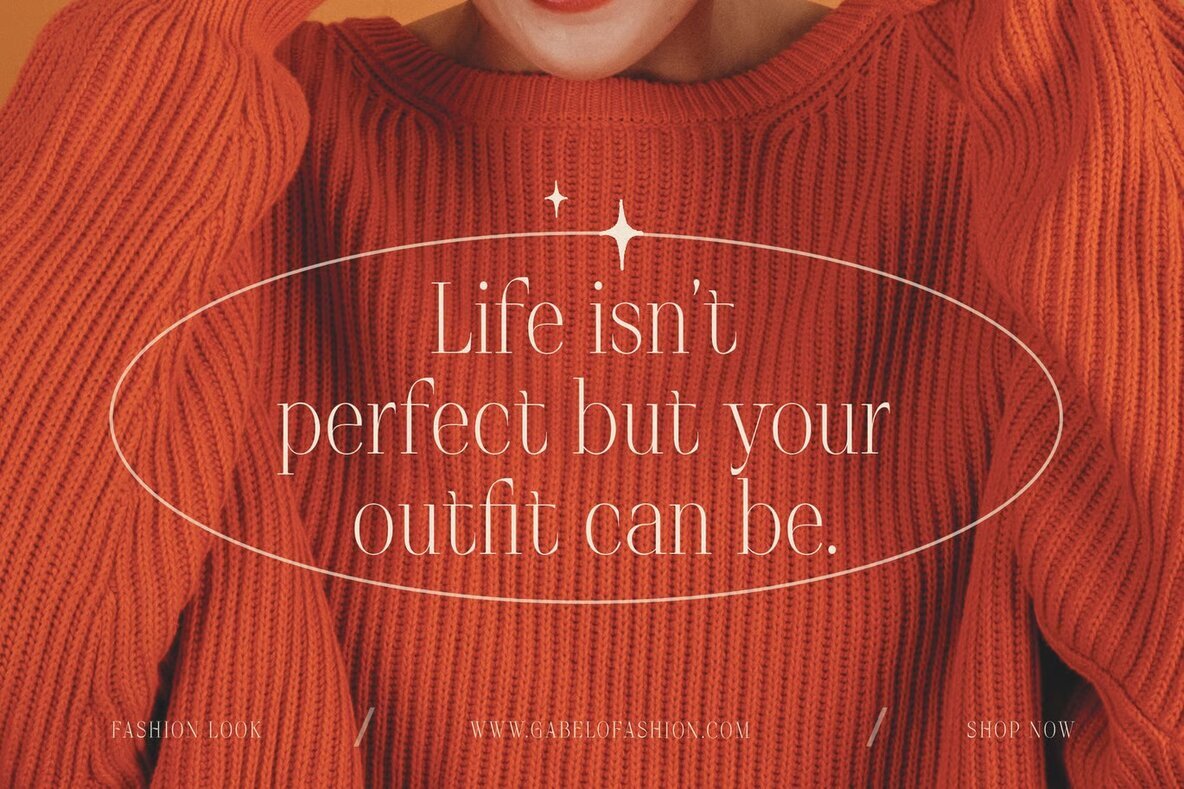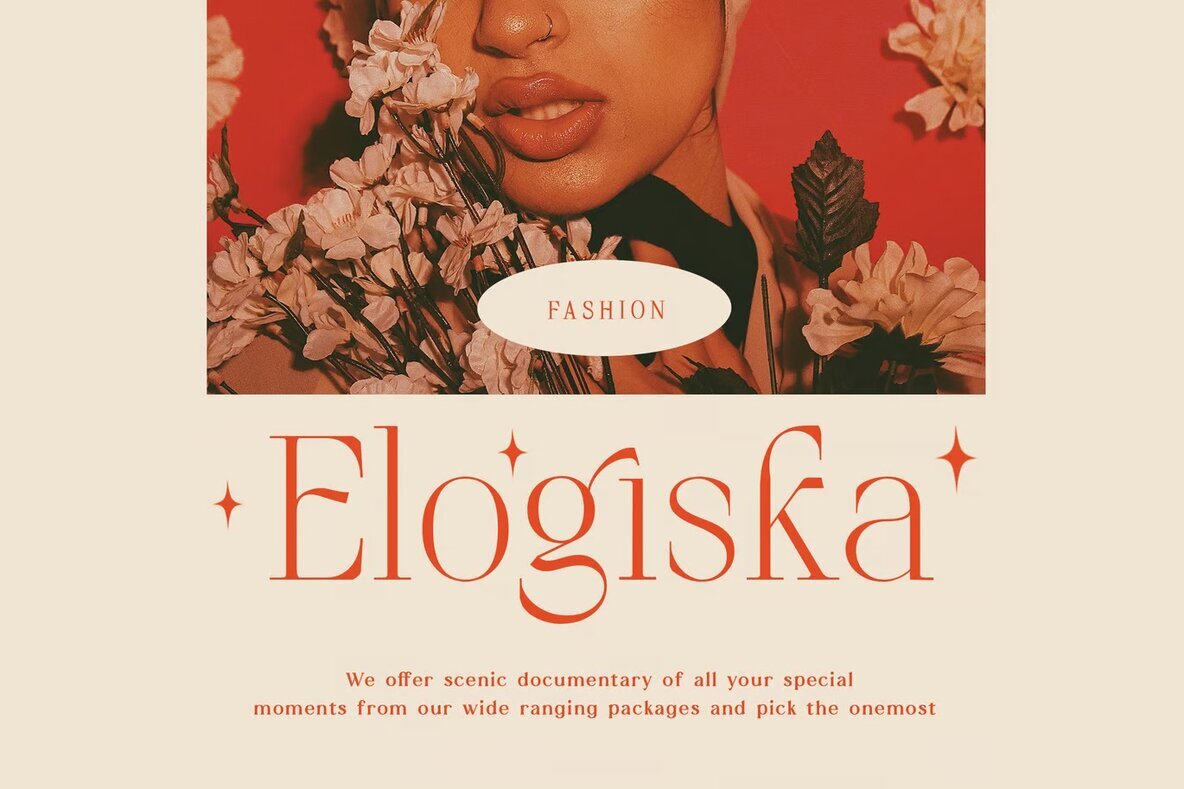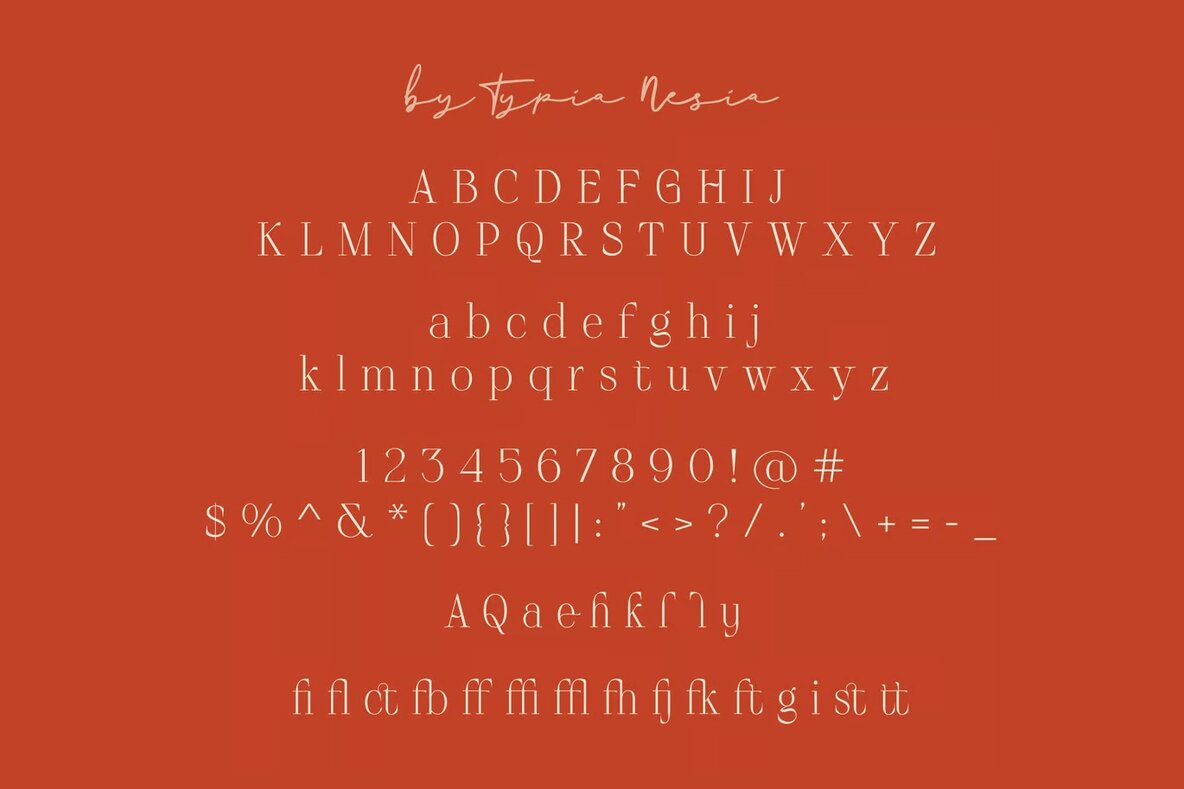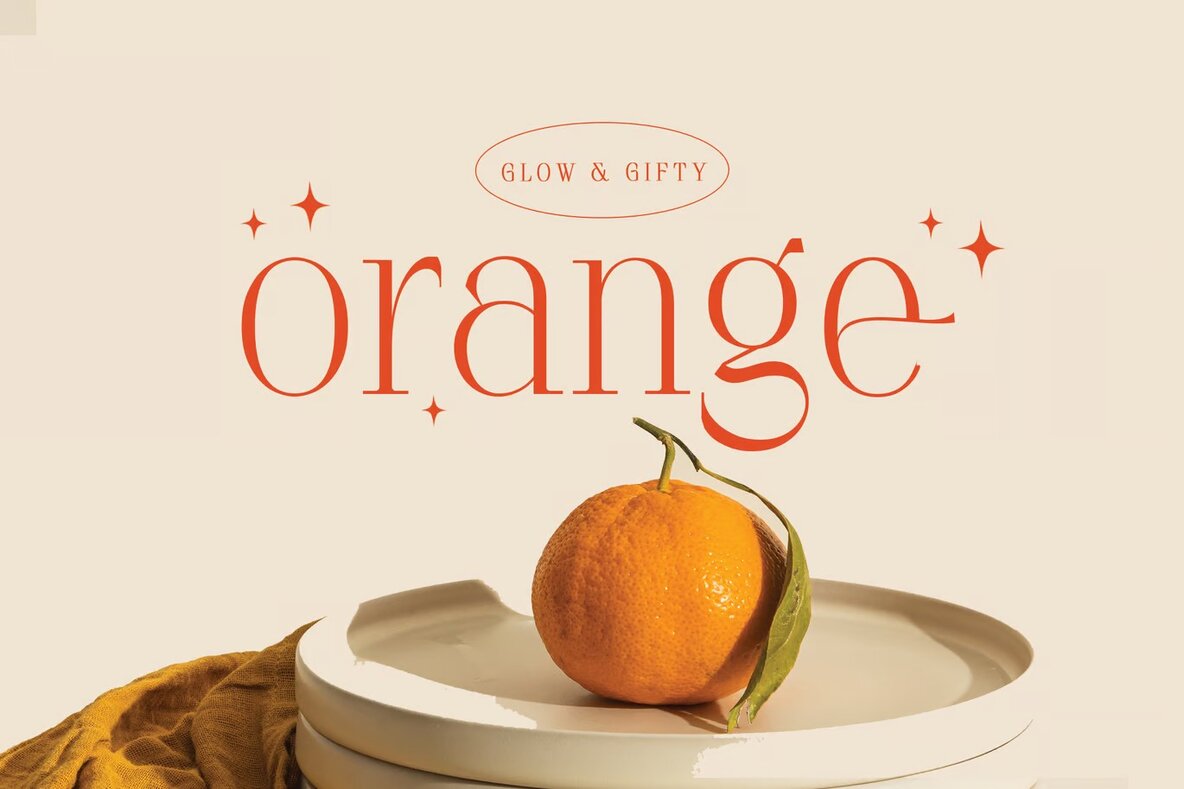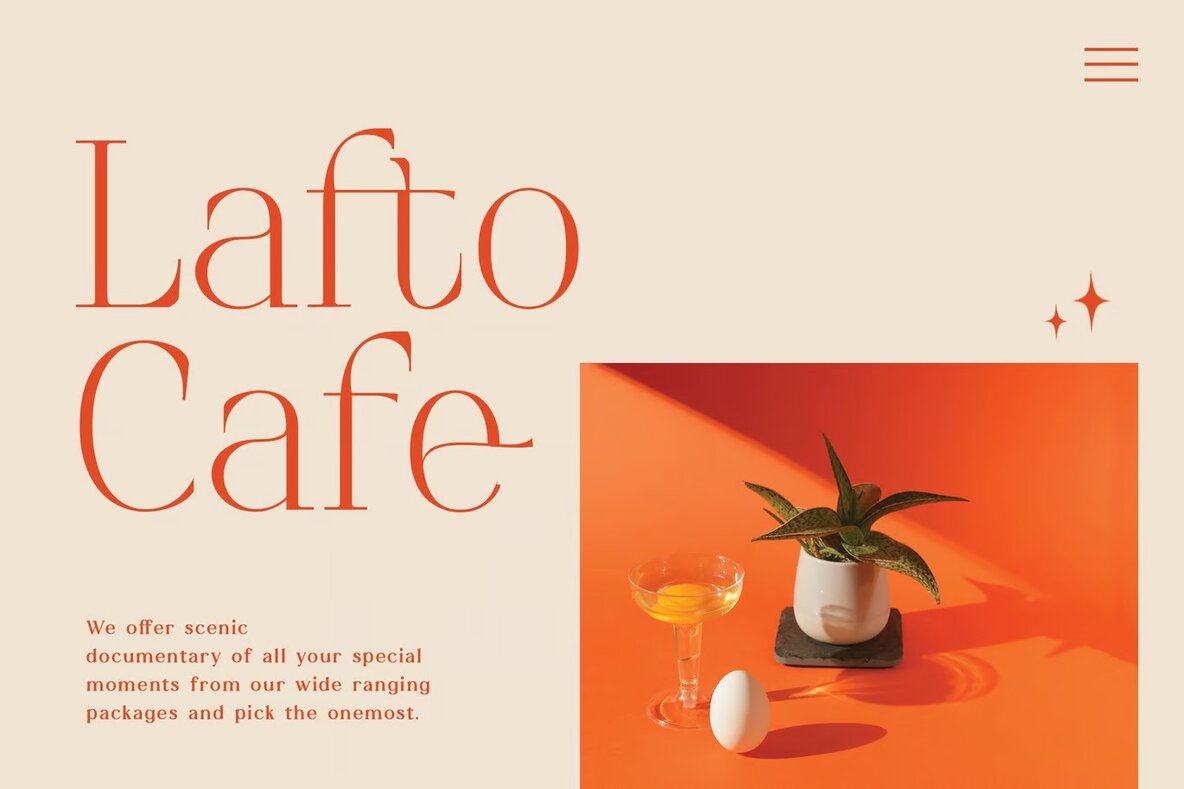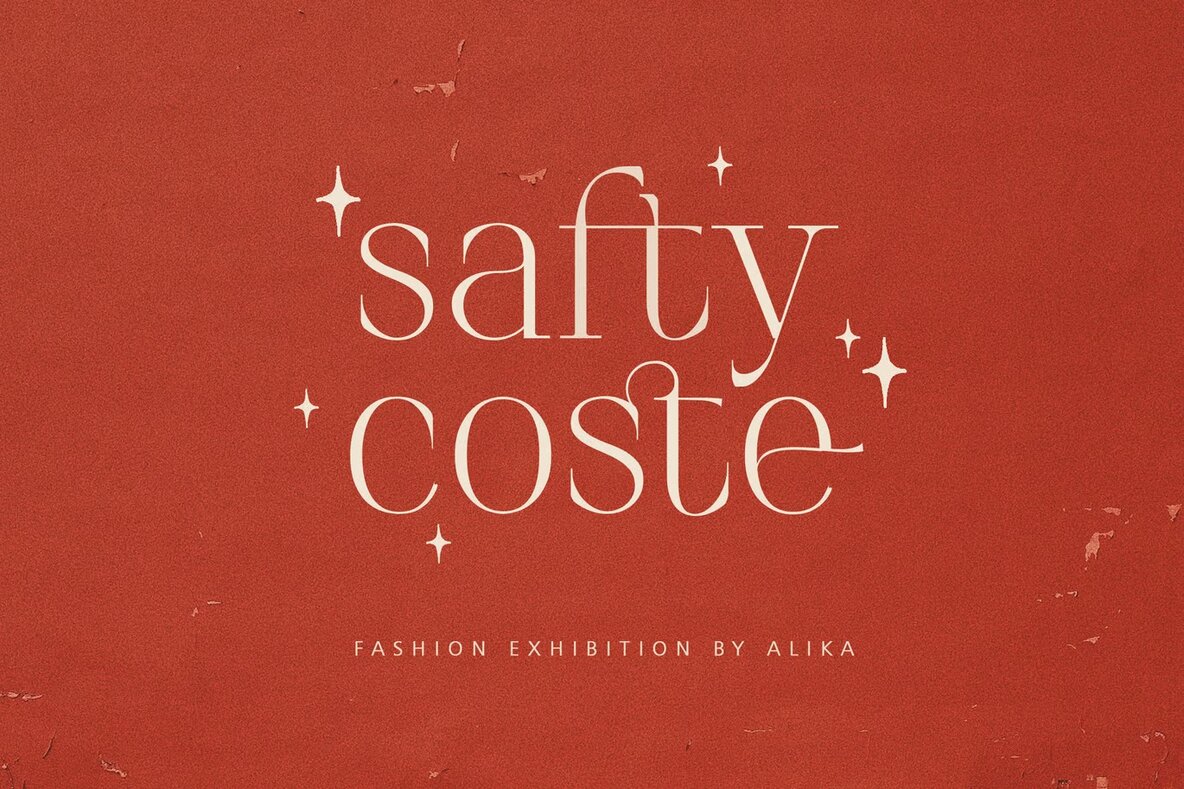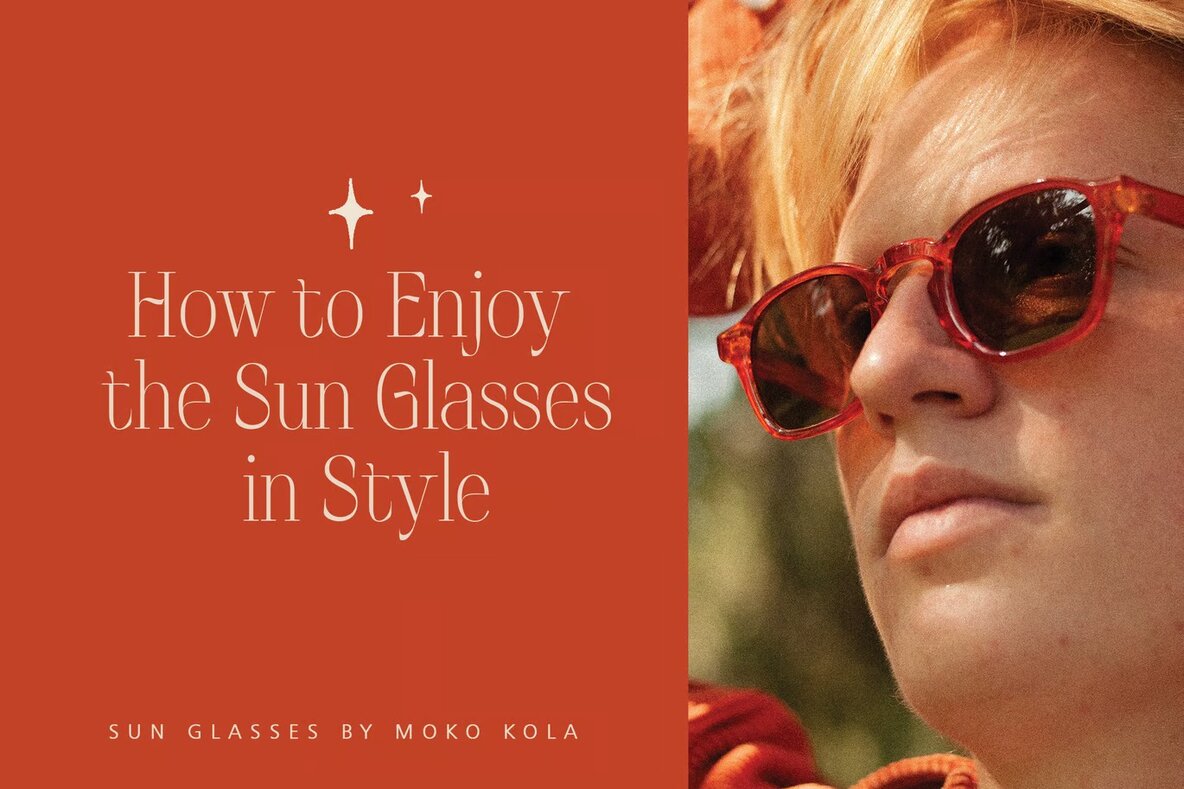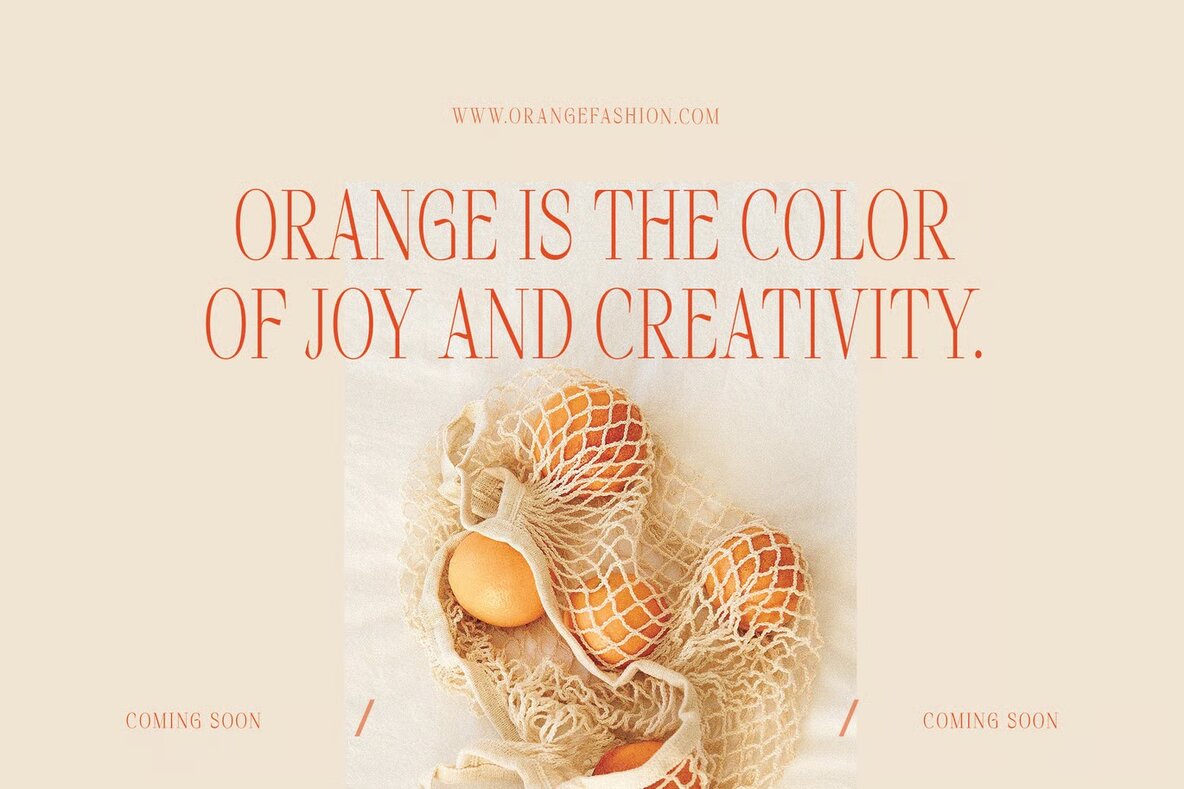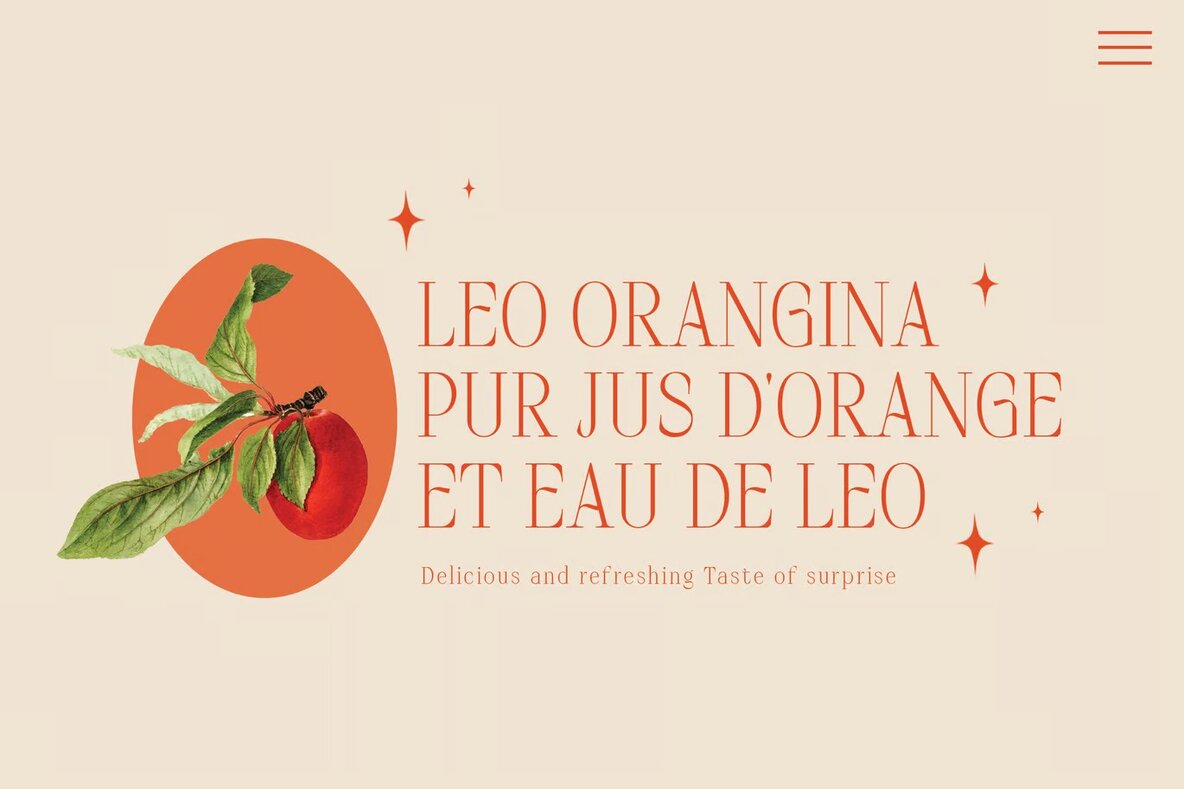
Glow and Gifty Font
Glow and Gifty Regular
Glow and Gifty Serif is a sophisticated font featuring an elegant aesthetic perfect for expressive feminine logo branding. With its range of alternates and ligatures, this font allows you to create refined typography designs. Ideal for luxury logos, classy editorial designs, women's magazines, cosmetic brands, fashion promotions, and art galleries, it brings a touch of elegance to any project.
Whether you're working on museum exhibits, architectural histories, boutique branding, stationery, blog design, or modern advertising, Glow and Gifty Serif adapts beautifully. Use it for art quotes, home decor, book covers, special events, and more to add a touch of class and creativity to your work.